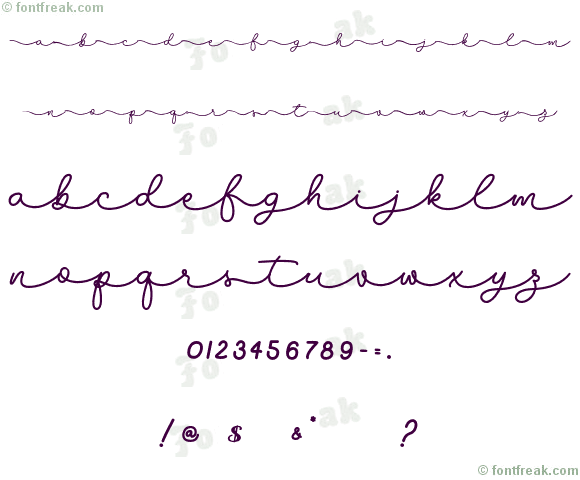
Sudsakorn - Personal Use
Sudsakorn - Personal Use is a charming handwritten font designed by Suthi Srisopha, perfect for those looking to add a touch of personality to their projects. This decorative script font combines a casual, flowing style with a unique flair that is both inviting and warm. Its stroke weight varies subtly, offering a delightful contrast that enhances the overall visual appeal. The letters are gracefully spaced, allowing for easy readability while maintaining a stylish appearance. Sudsakorn features whimsical decorative elements, such as loops and swirls, which contribute to its artistic character.
The font is exceptionally versatile and ideal for a range of applications. It shines in wedding invitations, where its elegant yet playful style can set the tone for a special day. Additionally, it works beautifully on greeting cards, adding a personal touch to heartfelt messages. Restaurant menus can benefit from Sudsakorn’s inviting design, creating an ambiance that feels both cozy and artistic. Moreover, it can be used in social media graphics, making posts stand out with its engaging aesthetic. Graphic designers, small business owners, and content creators will find this font particularly appealing, as it allows them to convey a sense of warmth and friendliness in their branding.